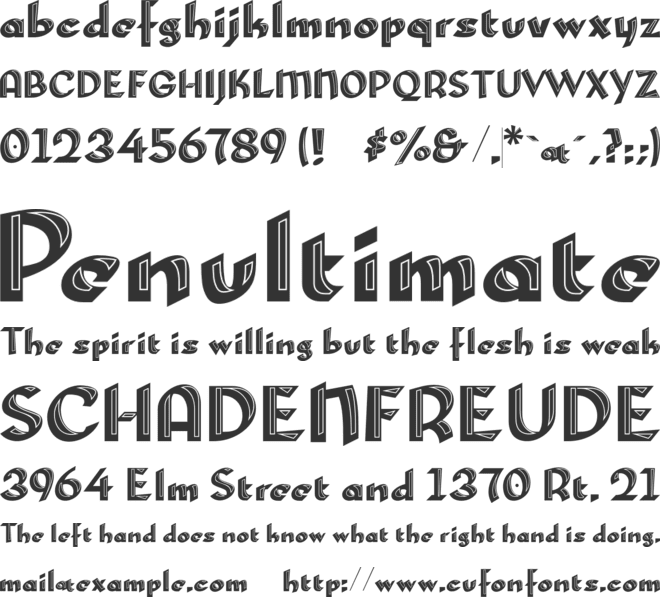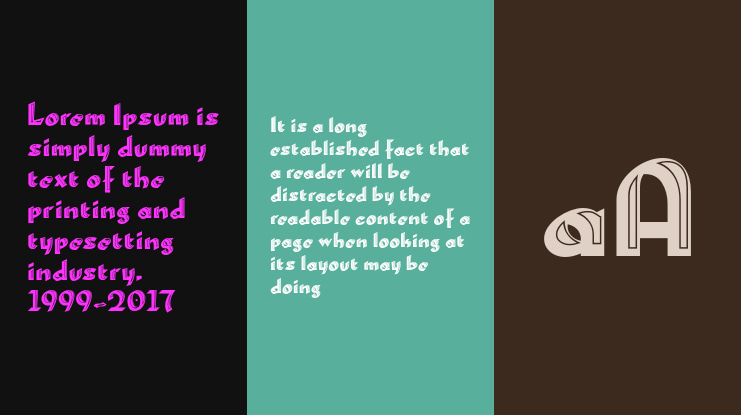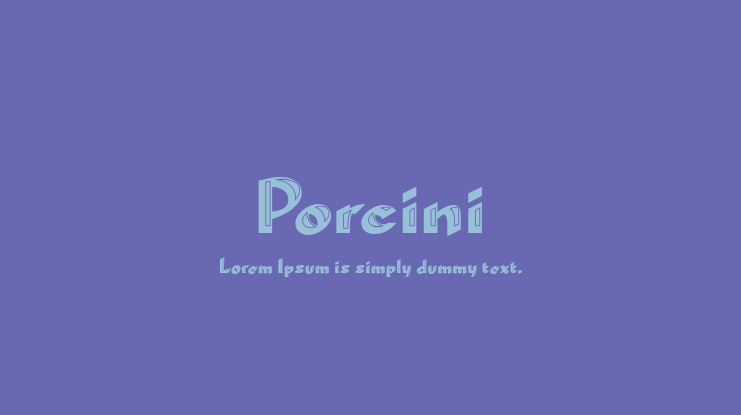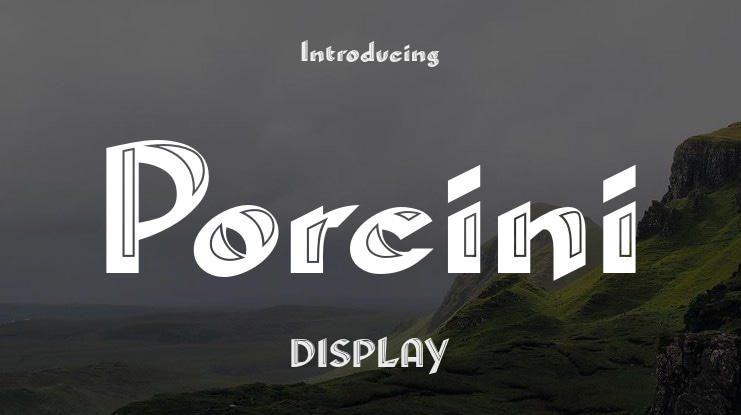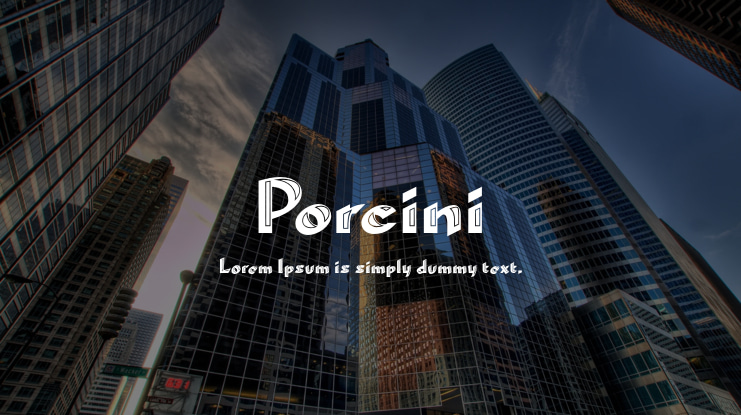
"Porcine" means "like a pig" and Porcini means "Italian, literally ‘little pigs’." This font began as a project in 1999, and languished for a quarter decade, until I resurrected it from a NAS drive while looking for something else entirely. The "Stainless" style was what I retrieved from the vault, and used subtraction to create the other styles. I was reminded that I had done this when I saw a friend's flyer using a heavy calligraphic font, albeit one slightly more compressed than Porcini. I'm glad I found it, and that it spurred me into action. Donations (thanks!) to Venmo @Barry-Stock or Paypal